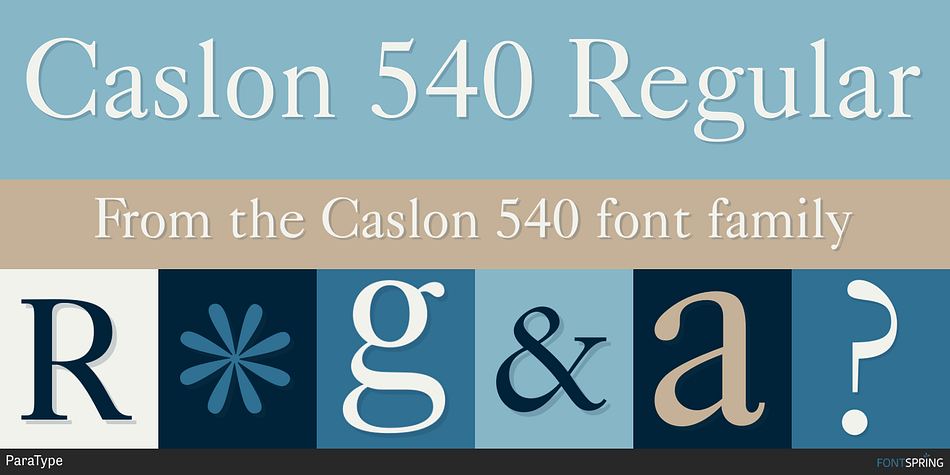
Caslon 540 Regular
Caslon 540 is a serif font family. This typeface has two styles and was published by ParaType.
Caslon 540 is the Bitstream version of Caslon 540, originally designed by the American Type Founders in 1902. This typeface is based on William Caslon I’s first English Old Style typefaces from 1725. Caslon drew inspiration from late 17th-century Dutch types, but his artistic skills allowed him to enhance those models, introducing a variety of forms and subtle details.
The strokes in Caslon 540 are somewhat heavier than in earlier Old Style fonts, with thicker and slightly stubby serifs. The italic letters have an uneven slope, adding character to the typeface. Text set in Caslon 540 remains legible and aesthetically appealing. Even today, Caslon is a favorite font among English printers for setting classical literature.
The Cyrillic version of Caslon 540 was developed for Paratype in 2002 by Isay Slutsker and Manvel Shmavonyan.
Caslon 540 main characteristics:
- Extended Latin and Cyrillic support